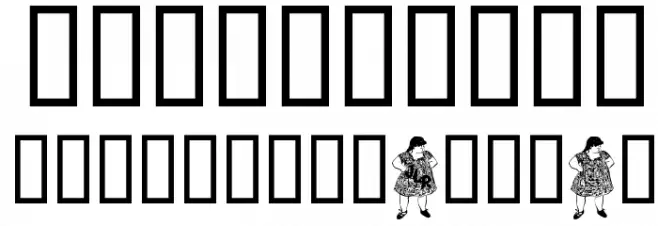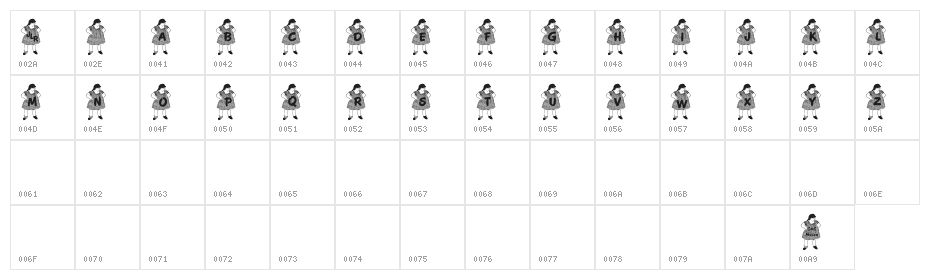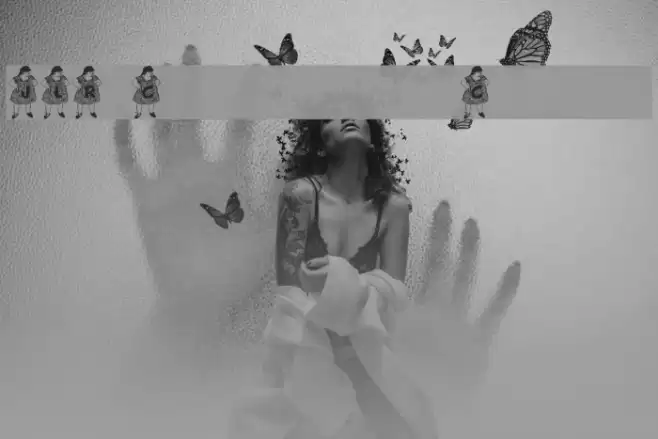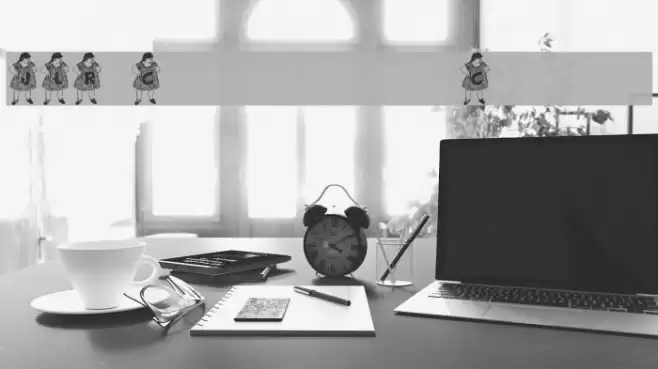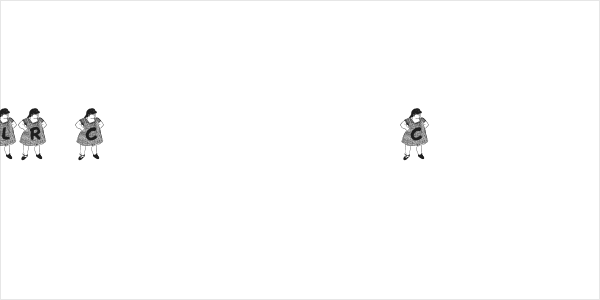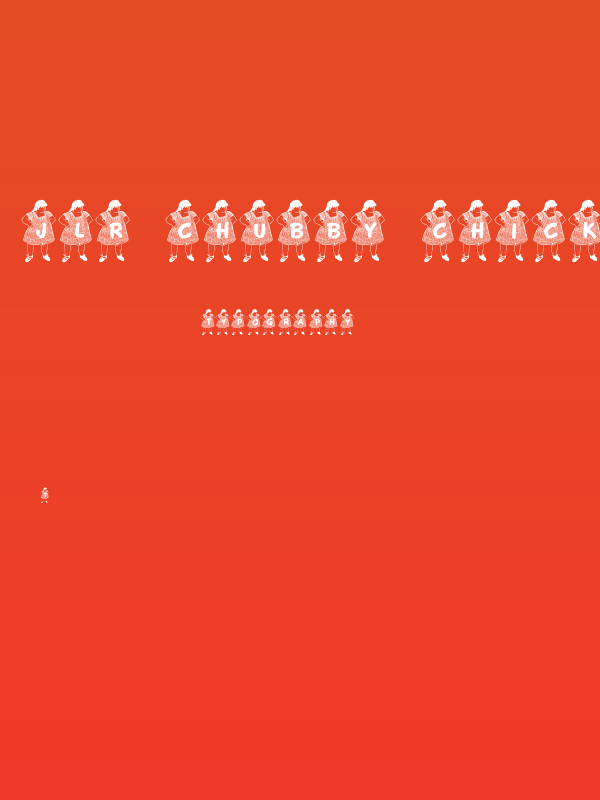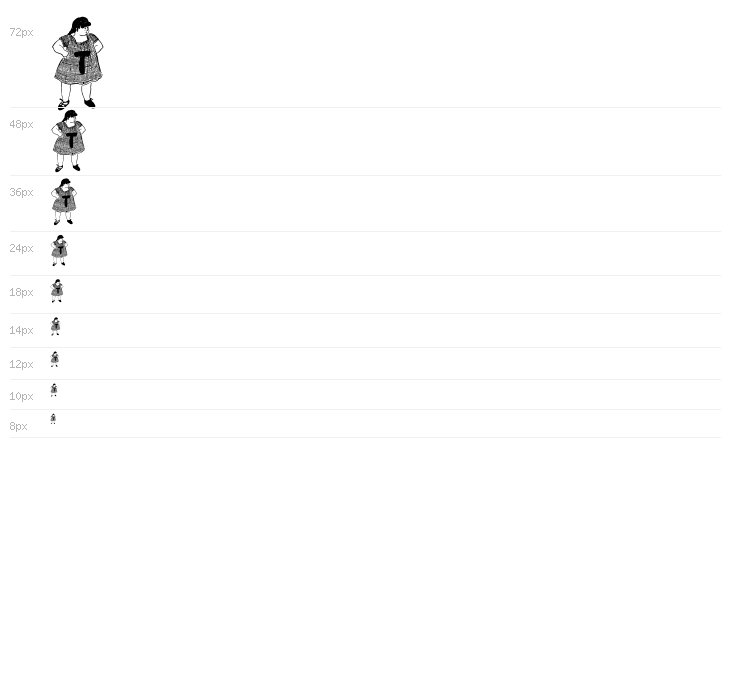
JLR Chubby Chick Font
JLR Chubby Chick Description
This playful and whimsical font features characters embedded within charming illustrations of a chubby character. Each letter is creatively integrated into the design, making it both decorative and unique. The font is highly stylized, with a focus on visual storytelling, as each letter is part of a larger illustration. This font is not suitable for body text due to its intricate design but serves as an eye-catching element for specific creative projects. The characters are bold and have a consistent width, with a medium contrast in stroke thickness. The overall style is decorative and playful, making it ideal for projects that require a touch of humor and creativity.
| Proposed Projects | Ideal for children's book covers, playful posters, creative branding, and unique invitations. |